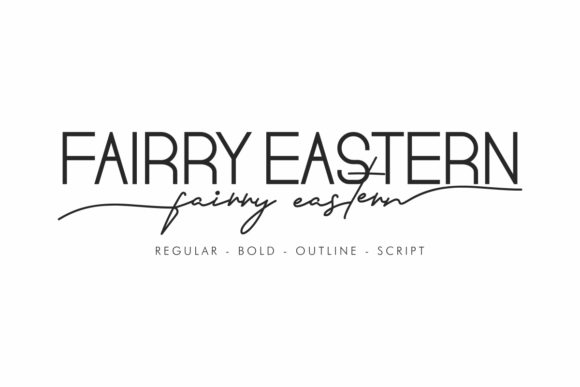
Discover the Enchanting Fairry Eastern Font: A Duo of Elegance and Versatility
In the realm of typography, few fonts manage to capture the essence of charm and elegance as effectively as the Fairry Eastern Font. This beautiful duo font, consisting of a script and a sans serif font, is designed to bring a touch of sophistication and whimsy to any design project. Whether you’re a seasoned designer or a crafty DIY enthusiast, Fairry Eastern is poised to become your go-to font for projects that demand a charming appearance.
The Dual Nature of Fairry Eastern
One of the standout features of Fairry Eastern is its dual nature, offering both a script and a sans serif font. This versatility allows designers to use the fonts in a variety of contexts, from elegant invitations and branding materials to playful crafts and DIY projects. The script font exudes elegance and sophistication, perfect for creating a luxurious feel, while the sans serif font offers a clean and modern look, ideal for adding a touch of simplicity and clarity.
PUA Encoding for Ease of Use
Fairry Eastern Font comes with PUA (Private Use Area) encoding, a feature that significantly enhances its usability. PUA encoding allows users to access all the glyphs and swashes easily, providing a wide range of creative possibilities. This means that designers can effortlessly incorporate intricate details and flourishes into their work, elevating the overall aesthetic and making each project truly unique.
Applications of Fairry Eastern Font
The applications of Fairry Eastern Font are vast and varied. Here are a few examples of how this versatile font duo can be used:
- Branding and Logo Design: The elegant script font can add a luxurious touch to brand identities, while the sans serif font can provide a modern and approachable feel.
- Stationery and Invitations: Create beautiful, eye-catching invitations and stationery that stand out with the charming and sophisticated look of Fairry Eastern.
- DIY Crafts and Projects: Add a professional and stylish touch to your craft projects, such as handmade cards, scrapbooking, and other paper crafts.
- Digital Content: Enhance your digital content, including blog posts, social media graphics, and website design, with a font that offers both elegance and playfulness.
Why Choose Fairry Eastern Font?
Choosing Fairry Eastern Font for your design projects comes with numerous benefits:
- Uniqueness: The dual nature of the font and its PUA encoding ensure that your designs stand out with a unique and personalized touch.
- Versatility: Seamlessly switch between the script and sans serif fonts to suit the tone and style of your project.
- Ease of Use: PUA encoding makes it easy to access and use the various glyphs and swashes, saving you time and effort.
- Charming Appearance: Infuse your designs with a charming and elegant look that captivates your audience.
Fairry Eastern Font is a remarkable duo font that brings together the best of both worlds with its script and sans serif fonts. Its PUA encoding and ease of use make it an excellent choice for designers and crafters looking to add a touch of elegance and charm to their projects. Whether you’re working on professional branding materials or personal DIY crafts, Fairry Eastern is sure to exceed your expectations and elevate your designs to new heights.